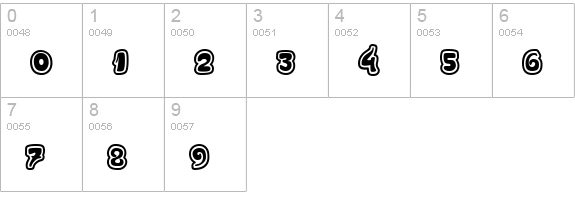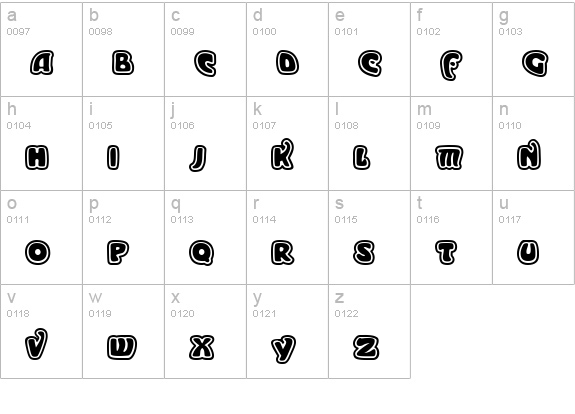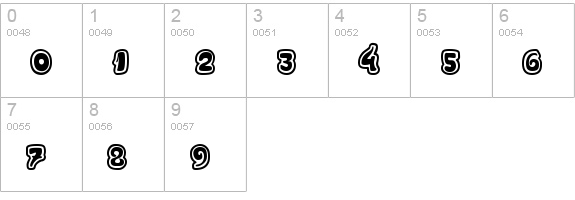
Moderno Outline Font Details
Moderno Outline font is a sleek and sophisticated typeface that exudes modernity and elegance. With its clean lines and minimalistic design, this font is perfect for creating contemporary and stylish designs. The Moderno Outline font is versatile and can be used for a wide range of projects, from branding to editorial design. Best of all, Moderno Outline font is available for free download at FontsMarket.com. This means that you can easily access and use this beautiful font in your projects without any cost. Don't miss out on the opportunity to enhance your designs with the Moderno Outline font today!